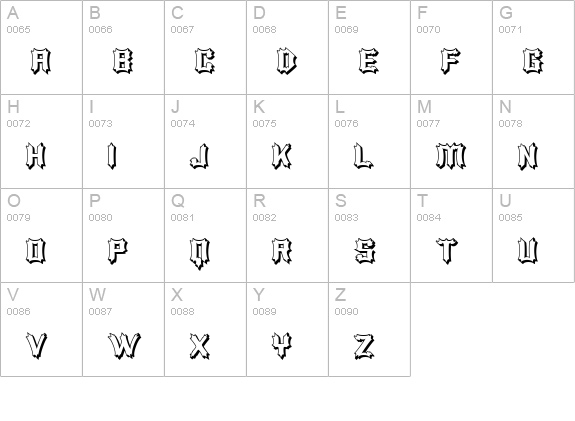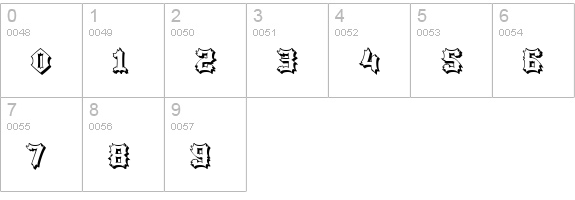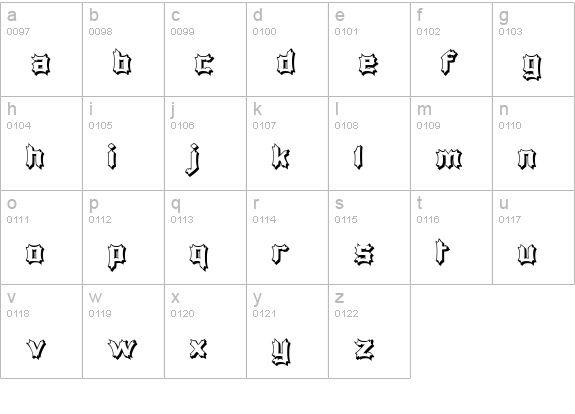
Luciferius Infernitus Font Details
Luciferius Infernitus is a captivating and mysterious font that exudes an aura of dark elegance and sophistication. Its intricate, Gothic-inspired letterforms are imbued with a sense of otherworldly beauty, making it the perfect choice for projects that demand a touch of the dramatic and the fantastical. This font is meticulously designed to evoke a sense of ancient mysticism and occult allure, making it ideal for branding, book covers, posters, and other graphic design projects that require a touch of the supernatural. Whether you're working on a fantasy novel, a horror movie poster, or a gothic-themed event invitation, Luciferius Infernitus is sure to leave a lasting impression on your audience. What's even better is that this mesmerizing font is available for free download at FontsMarket.com. So go ahead and unleash the dark magic of Luciferius Infernitus in your next project and watch as it transforms your designs into spellbinding works of art.